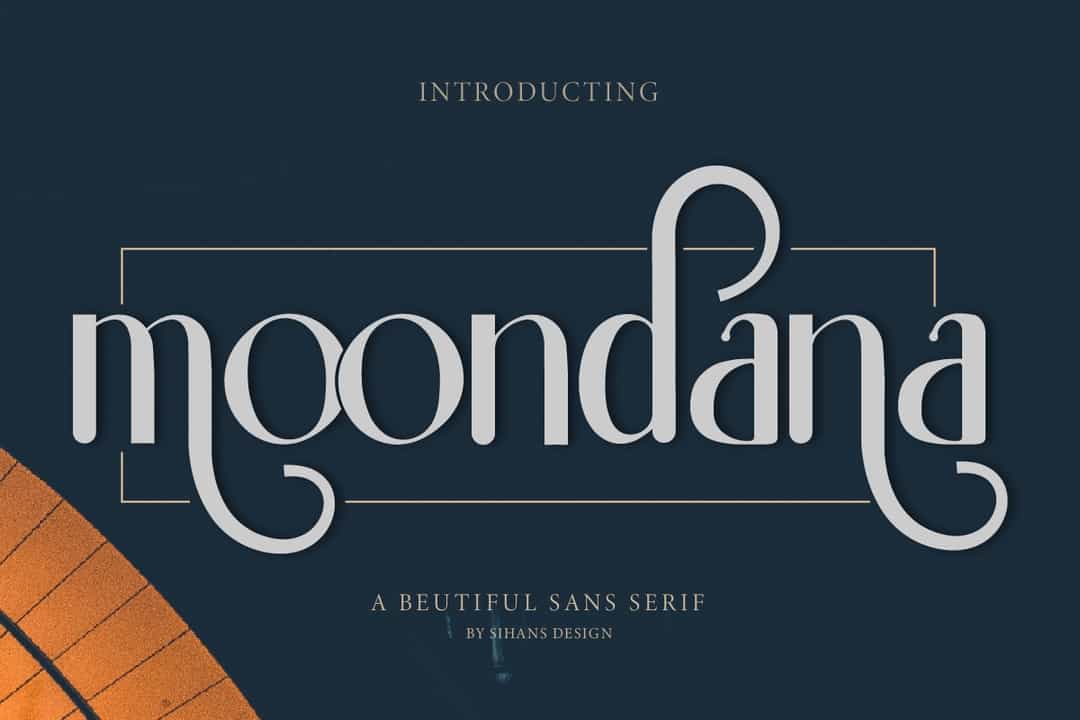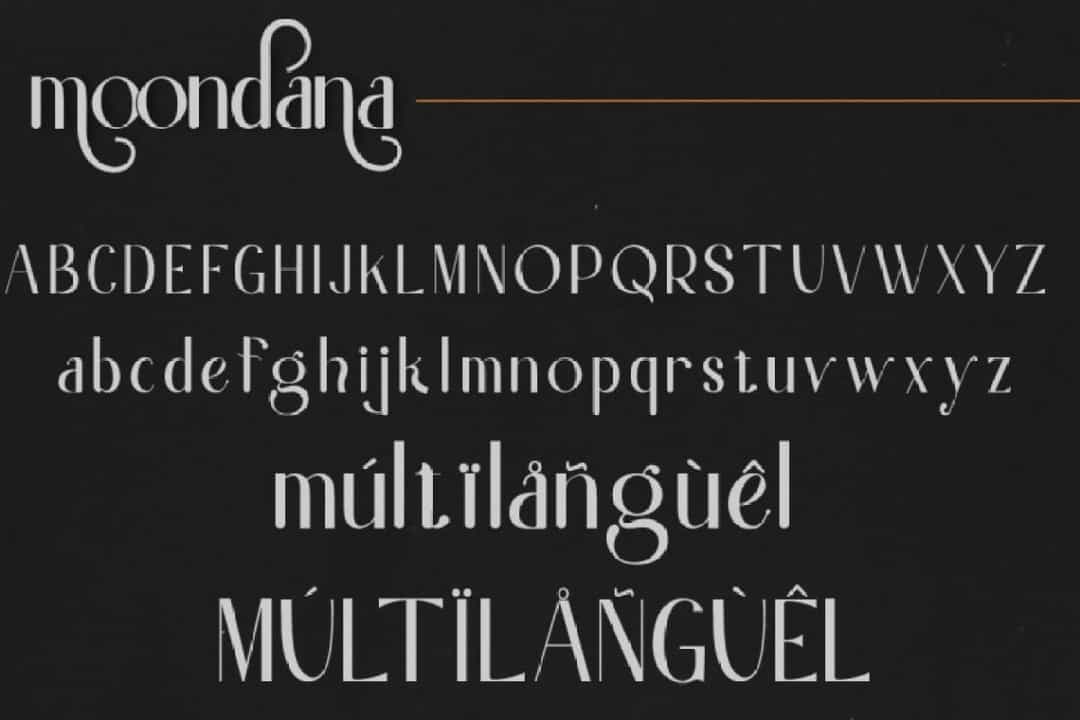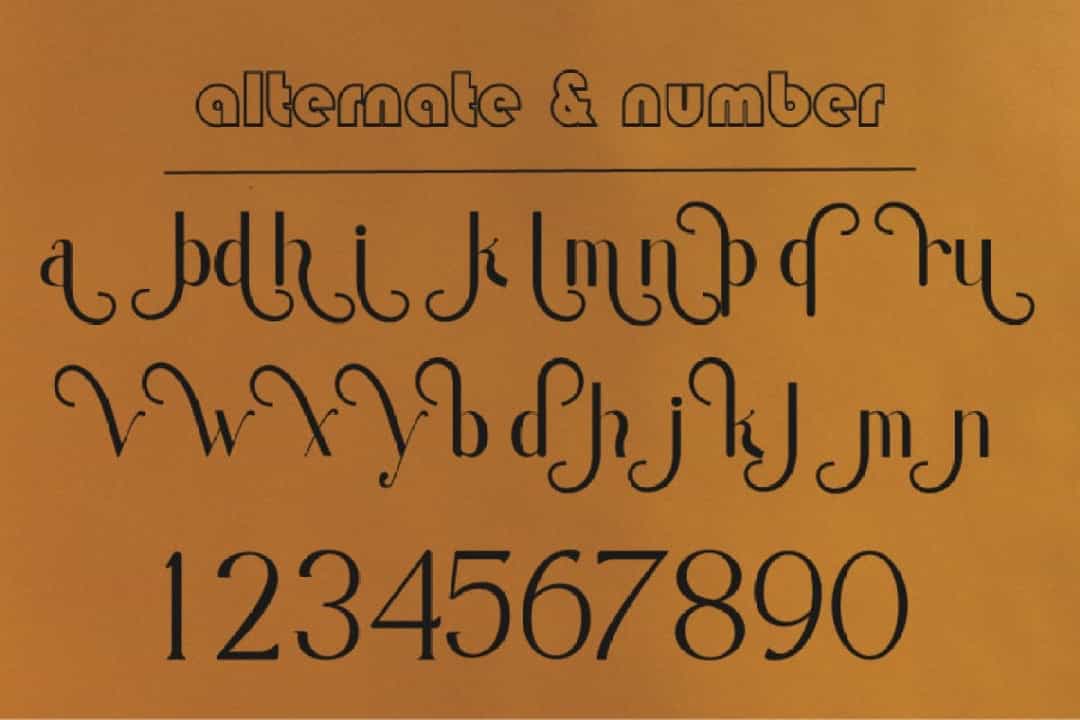
Moondana is an exquisite and thinly constructed simple sans font that adds elegance and class to designs of all kinds, be they wedding invites, thank-you cards, greeting cards, logos or business cards – or simply for adding personal touches in other projects. It is especially suitable for use as part of wedding invitation suites.